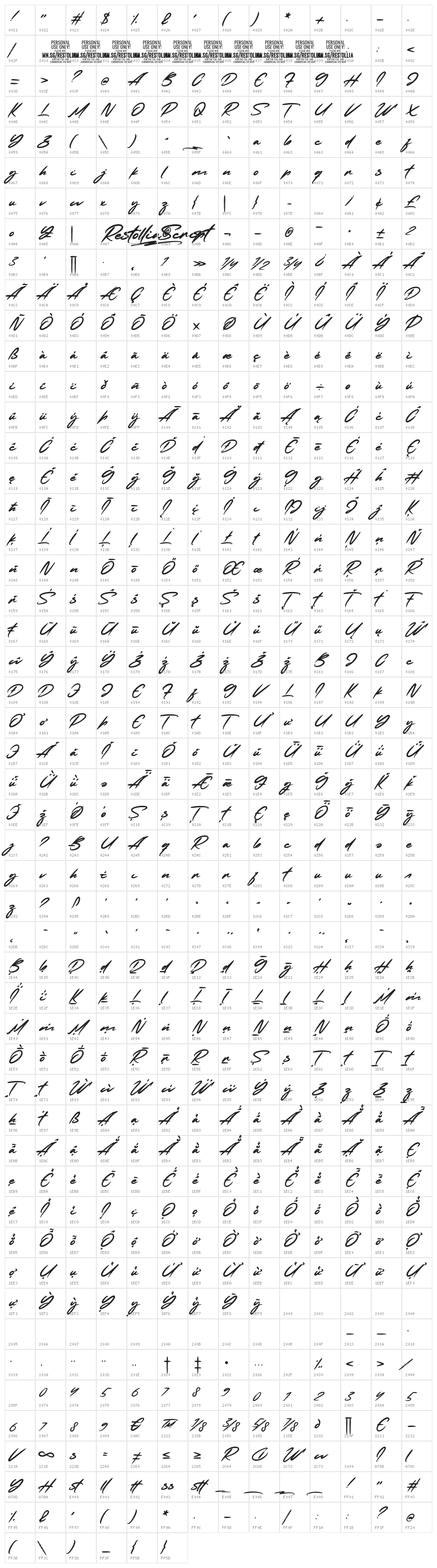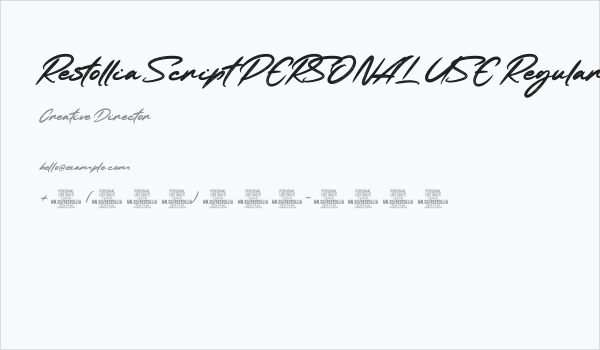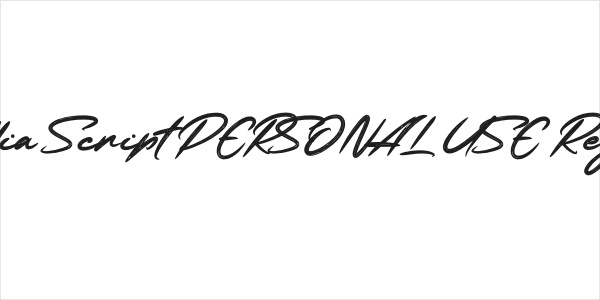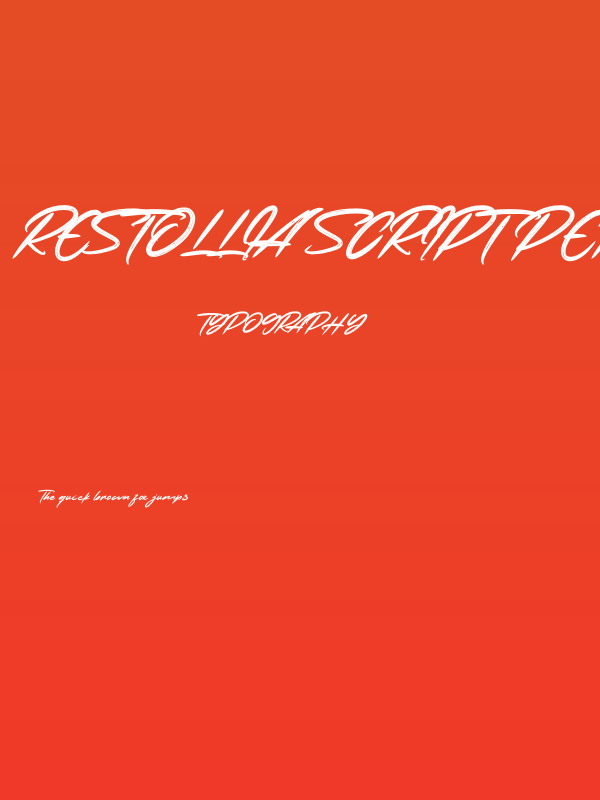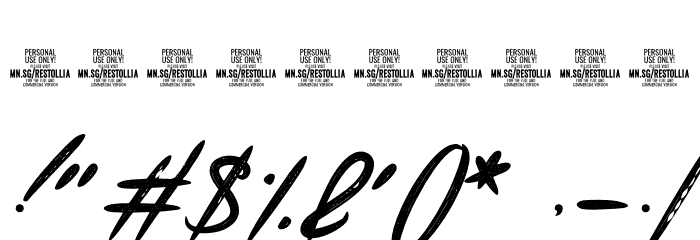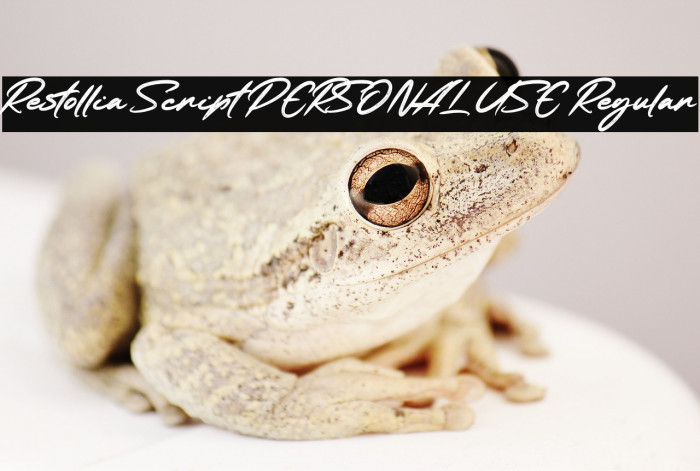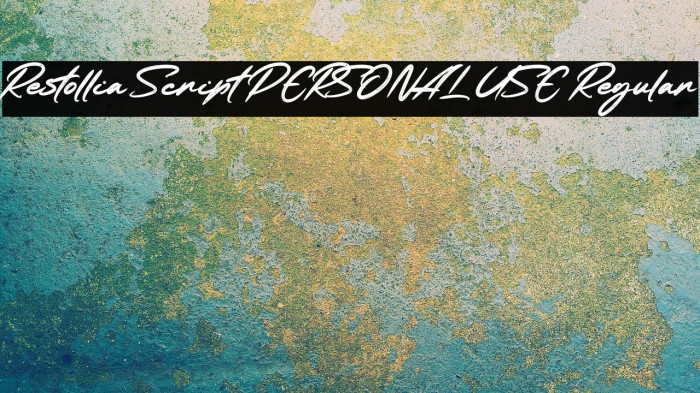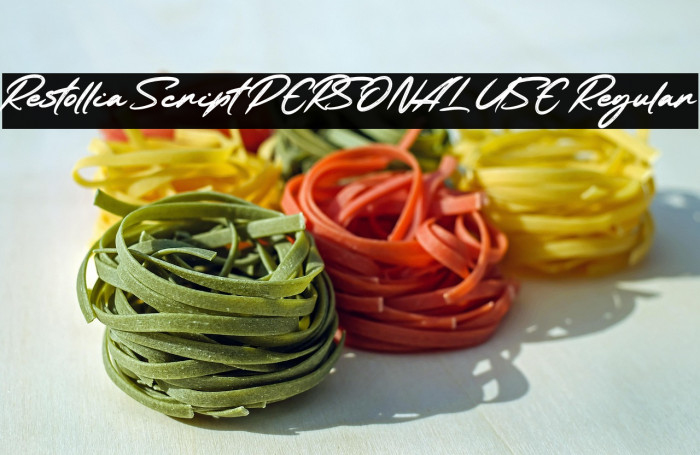
Restollia Script PERSONAL USE Regular Font
Restollia Script PERSONAL USE Regular Description
This font exudes a dynamic and energetic vibe with its bold, flowing script style. The letters are connected in a fluid manner, creating a sense of movement and elegance. The uppercase letters are particularly striking, with dramatic flourishes and a confident presence. The lowercase letters maintain a consistent style, offering a harmonious balance between readability and artistic flair. The numbers and special characters are crafted with the same attention to detail, ensuring a cohesive look across all elements. This font is perfect for projects that require a personal touch, such as invitations, branding, or artistic designs.
| Use Case | Logos, Invitations, Artistic Designs |
| Proposed Projects | Ideal for invitations, branding, artistic designs, and any project needing a personal touch. |